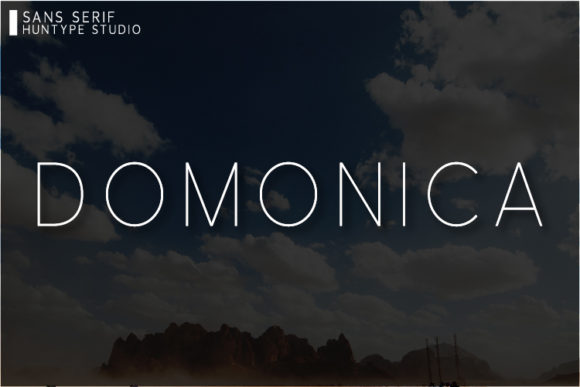
Introducing Domonica - A Sans Serif Font That Radiates Elegance and Beauty
In a world where visual aesthetics reign supreme, your choice of font can make a profound impact on the success of your beauty brand. Introducing Domonica, a meticulously crafted sans serif font that exudes sophistication, simplicity, and an undeniable sense of beauty. Its clean lines, meticulously balanced letterforms, and harmonious proportions elevate Domonica beyond a mere font; it's an artistic expression that captures the essence of beauty and elegance.
Domonica's meticulously designed characters dance gracefully across the page, captivating the viewer with their alluring curves and crisp edges. Each letterform is a testament to the font's unwavering commitment to visual excellence. Its carefully modulated strokes create a harmonious rhythm that flows effortlessly, guiding the reader's eyes through your captivating content.
With Domonica as your font of choice, your beauty products will radiate an aura of sophistication and charm. Its clean lines evoke a sense of purity and minimalism, allowing your products to shine in their true glory. Whether it's a luxurious skincare line or a vibrant collection of cosmetics, Domonica provides the perfect backdrop for your products to captivate and inspire.
Unlock the gateway to endless creative possibilities with Domonica. Its versatility extends from branding and packaging to website design and social media graphics. Domonica effortlessly adapts to a myriad of design styles, seamlessly blending with your unique brand identity. Let Domonica be your creative ally, transforming your vision into a captivating reality.
Experience the allure of Domonica today and elevate your beauty brand to new heights. Its timeless beauty and unwavering elegance will leave a lasting impression on your customers, fostering an emotional connection that transcends the boundaries of mere aesthetics. Domonica is more than a font; it's an investment in the future of your beauty brand, a key to unlocking a world of visual enchantment and boundless creativity.